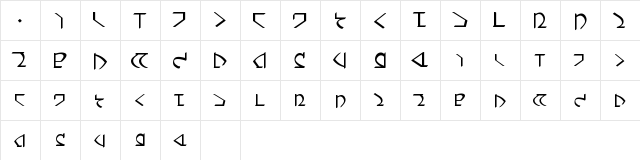
Dwemer Regular Font Preview
Dwemer Regular
Dwemer Regular Font Details
| Foundry | Neale Davidson |
| Designer | Neale Davidson |
Design Context for Dwemer Typeface
Dwemer is a composed and adaptable typeface that performs quietly and consistently across a wide range of design contexts.